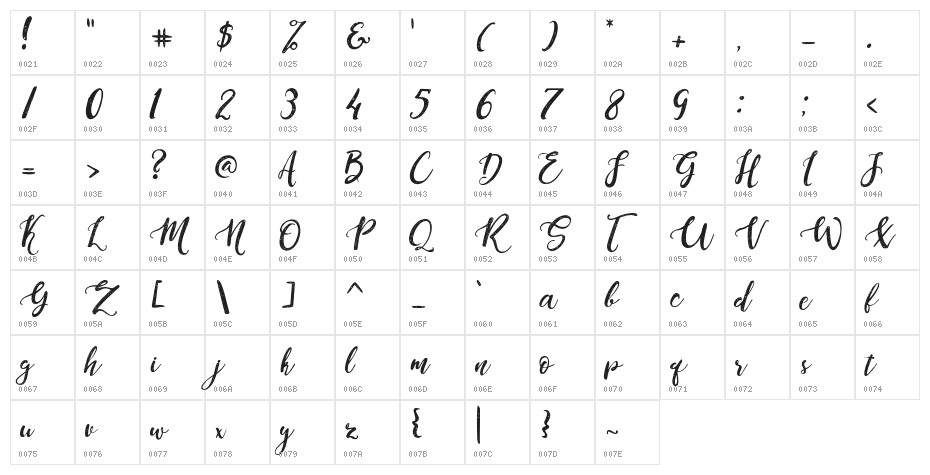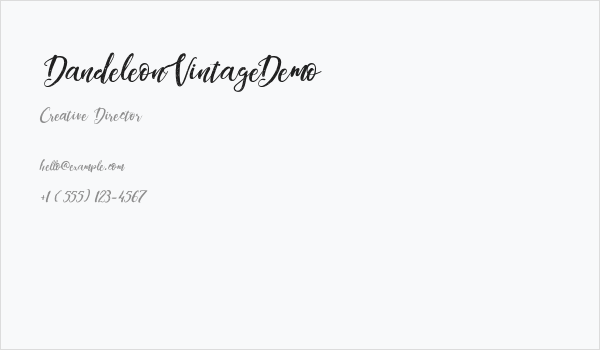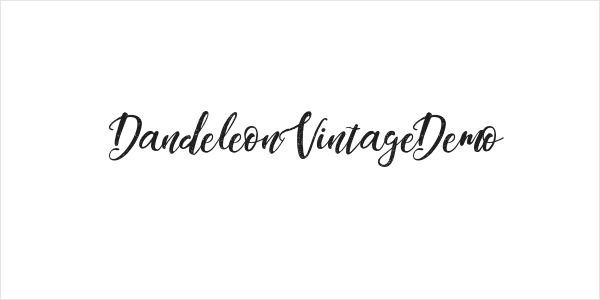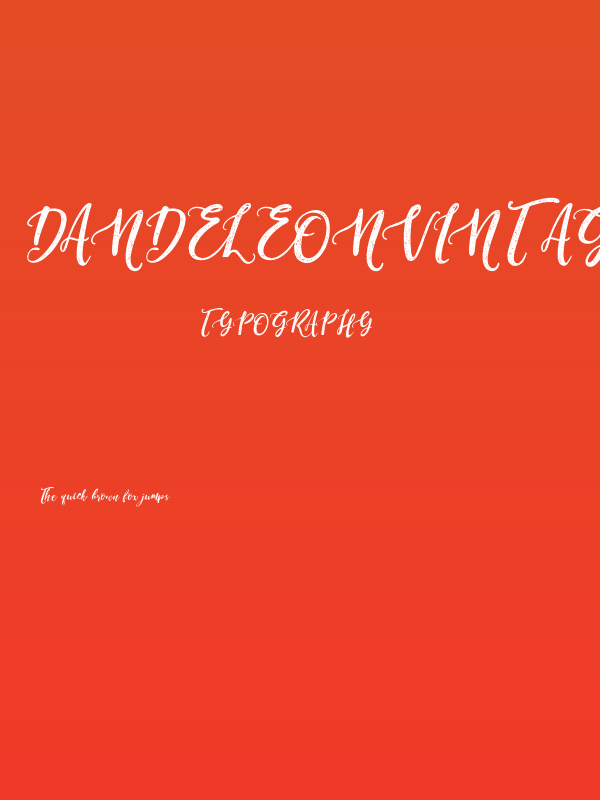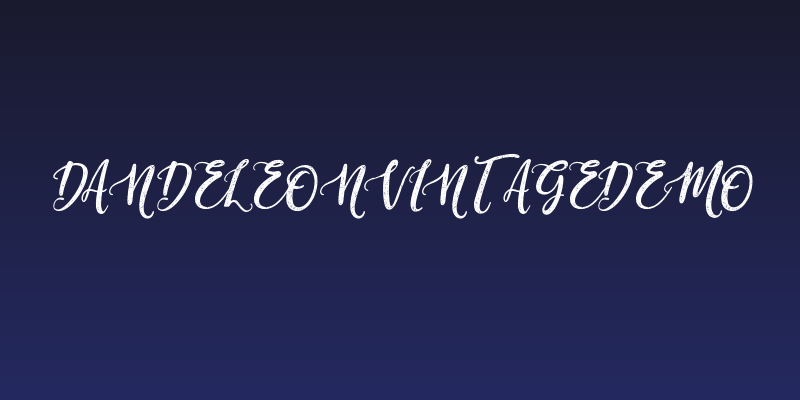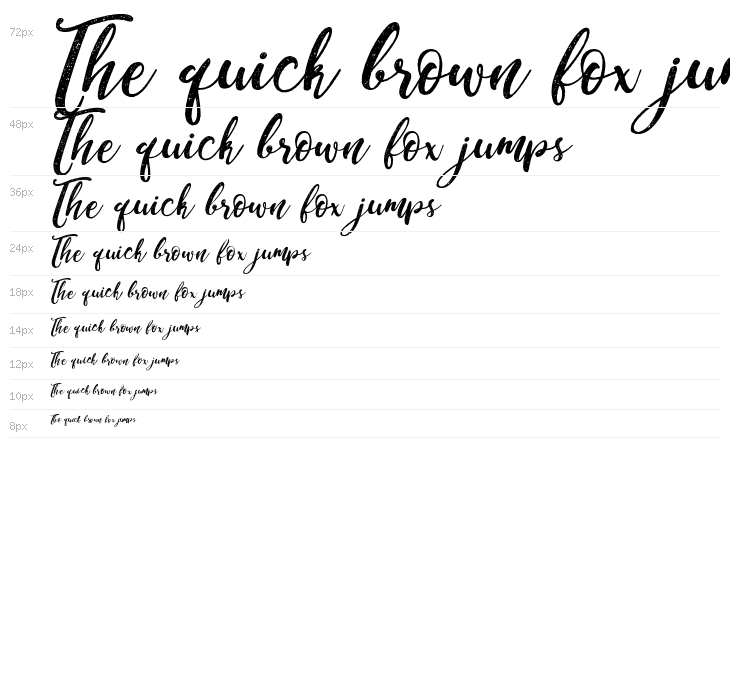
DandeleonVintageDemo Font
DandeleonVintageDemo Description
This font exudes a vintage charm with its script style, characterized by flowing, cursive letters that mimic the elegance of handwritten text. The letters have a textured appearance, adding a rustic and worn effect that enhances its nostalgic appeal. Uppercase letters are bold and prominent, while lowercase letters maintain a graceful flow, making it versatile for both headings and body text. The numerals and special characters are crafted with the same attention to detail, ensuring consistency across all elements.
| Proposed Projects | Ideal for wedding invitations, vintage-themed branding, greeting cards, and retro posters. |